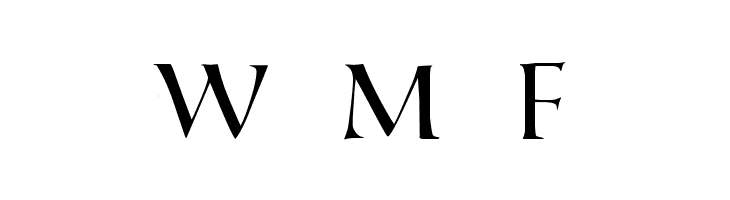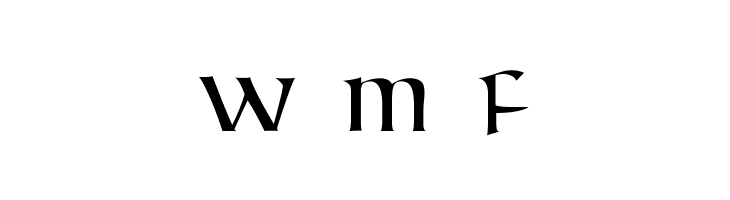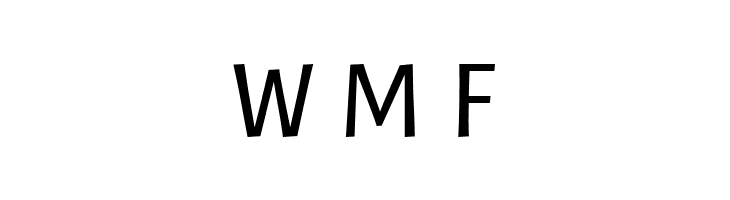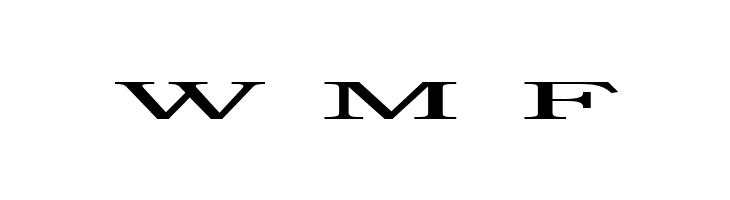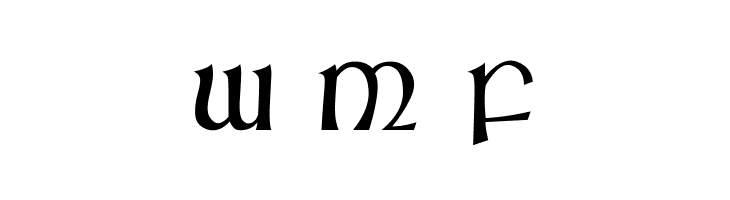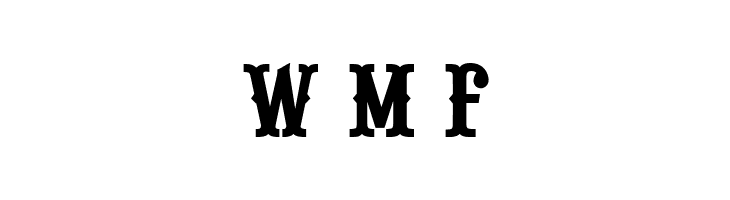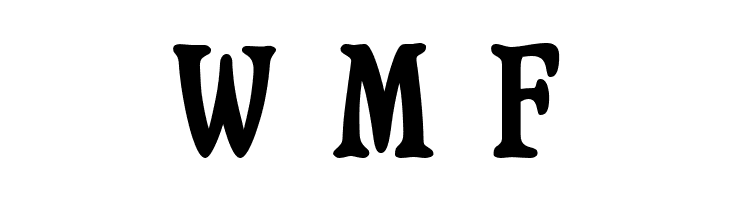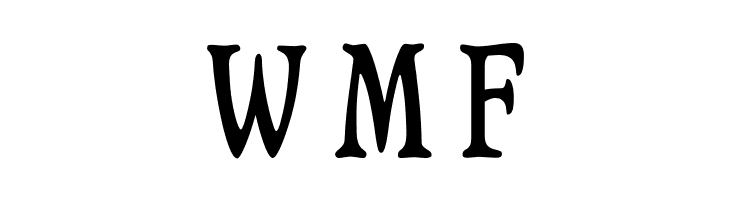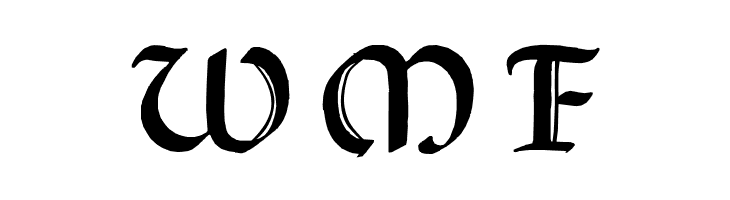
A classic serif font with bold, bracketed serifs and a strong, traditional presence.
( Paul Lloyd Fonts )
A bold, elegant serif font with a modern twist and sharp, clean lines.
( Fonts by www.floodfonts.com )
A modern, edgy font with sharp, angular strokes and a bold appearance.
( Fonts by Casady & Greene )
A Gothic-style font with intricate, angular strokes and elaborate serifs.
( Fonts by Steve Deffeyes - www.deffeyes.com )
A classic serif font with sharp serifs and clean lines, offering elegance and authority.
( Fonts by Steve Deffeyes - www.deffeyes.com )
A classic, calligraphic serif font with high contrast and elegant serifs.
A modern, clean sans-serif font with uniform stroke width and excellent readability.
( Fonts by Lutz Baar - www.menschengeist.de )
A modern sans-serif font with clean lines and a professional appearance.
A playful, bold font with slightly condensed letterforms and a cohesive design.
A bold, Art Deco-inspired font with geometric shapes and sharp angles.
A classic serif font with elegant curves and sharp edges, perfect for a timeless look.
A bold slab serif font with strong vertical emphasis and geometric elements.
A bold, shadowed decorative font with strong visual impact.
A bold, slanted font with a dynamic and energetic style.
( Fonts by Daniel Gauthier )
A bold, angular font with a rugged, vintage western style.
( Paul Lloyd Fonts )
A bold, classic serif font with strong, clean lines and sharp edges.
( Paul Lloyd Fonts )
A classic serif font with elegant strokes and refined details.
( Paul Lloyd Fonts )
A classic, calligraphic font with elegant, flowing characters and sharp serifs.
A bold, futuristic font with sharp angles and a dynamic slant.
A bold, Gothic-style font with intricate flourishes and a dramatic presence.
A dynamic, edgy font with sharp strokes and a slightly distressed look.
A dynamic, edgy serif font with sharp, angular serifs and a rebellious flair.
A dynamic, slanted font with sharp, angular strokes and a bold presence.